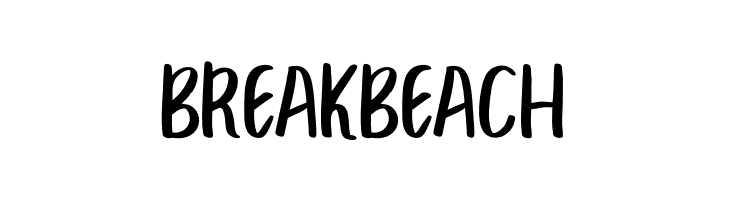
A bold, brush-textured font with a rugged and dynamic appearance.
A bold, playful font with a hand-drawn, quirky aesthetic.
A bold, brush-style font with dynamic and aggressive strokes.
A bold, hand-drawn font with an energetic and expressive style.